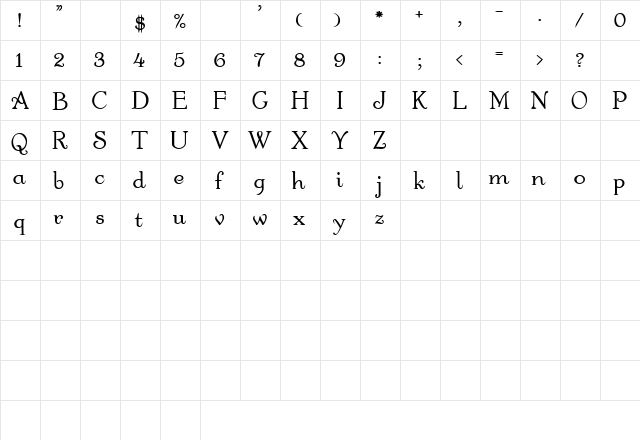
Walters Bold
Design Context for Walters Typeface
Walters takes a measured approach to typography — its balanced proportions and neutral character make it a reliable workhorse for both digital and print work. The heavy weight commands attention and anchors typographic hierarchies.